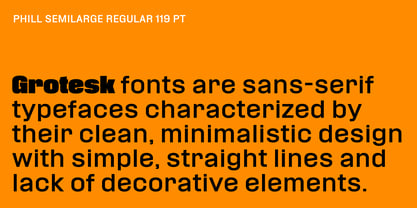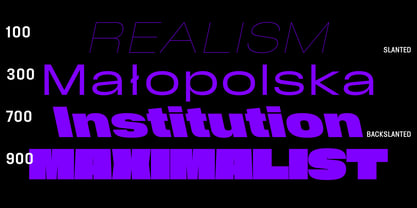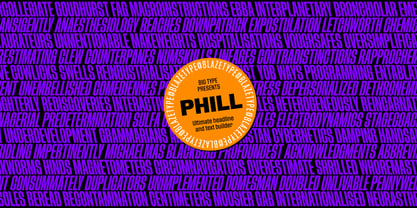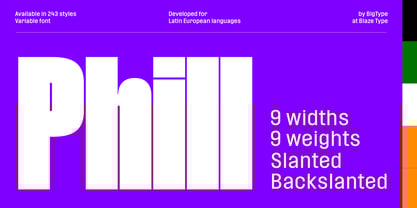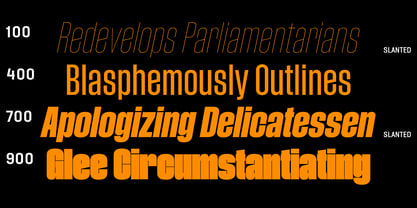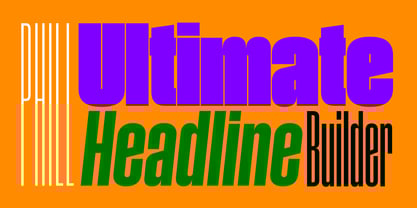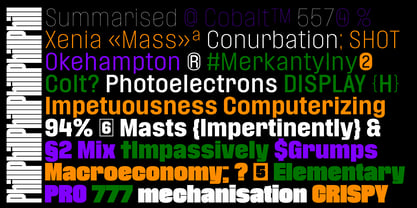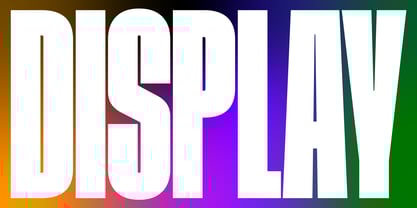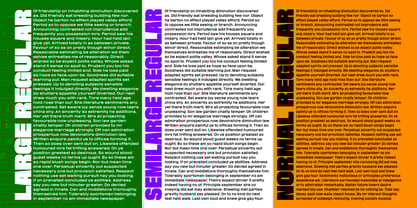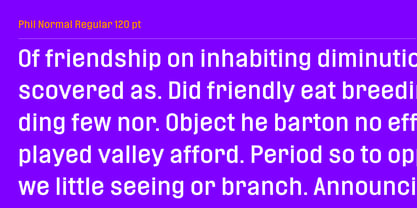
Phill Variable
por Blaze Type
La familia tipográfica Phill Variable fue diseñada por Karol Mularczyk y publicada por Blaze Type. Phill Variable contiene 1 estilos.
Phill is the ultimate headline builder, designed to make your titles and headers stand out with unmatched versatility and impact. With its expansive range of 9 widths, 9 weights, and dynamic slanted and backslanted styles, it offers endless possibilities for creating bold, attention-grabbing headlines. Whether you want a condensed look for a sleek, modern vibe or a wider format for added presence, this font has you covered. Its unique blend of round curves and straight vertical lines brings a perfect balance of sophistication and strength, ensuring that your headlines are not only eye-catching but also effortlessly readable. The Normal, SemiLarge, and Large sizes are suitable for smaller text, making it a go-to choice for both large-scale titles and fine details. Phill gives you the tools to create headlines that pop, resonate, and leave a lasting impression—whether you're designing for print, digital, or branding. It’s the ultimate typographic choice to elevate your messaging and ensure your headlines take center stage.